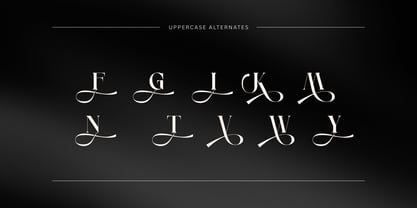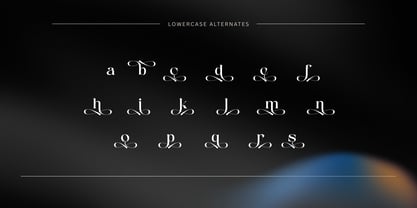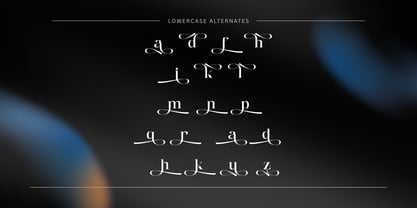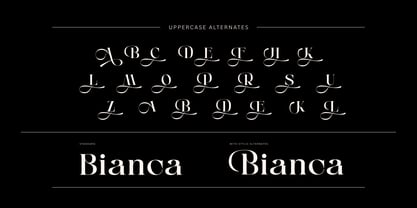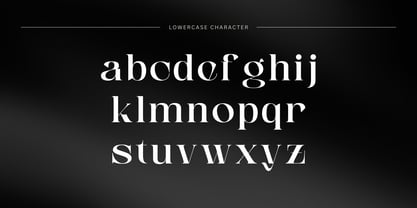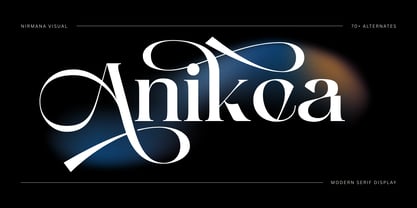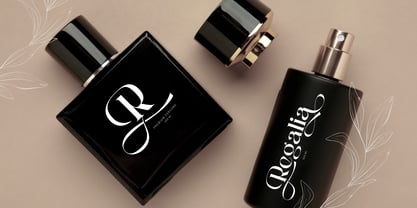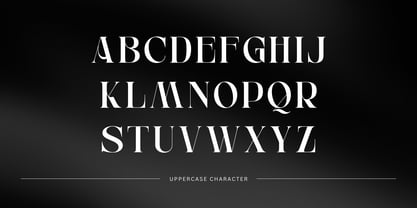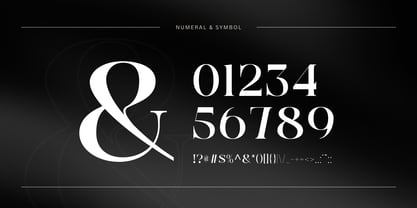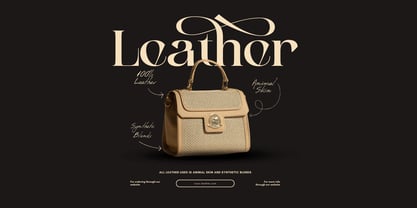
Anikea
The Anikea Font Family was designed by Sigit Dwipa and published by Nirmana Visual. Anikea contains 2 styles and family package options. More about this family
Anikea is a refined luxury logo font designed to bring timeless elegance to your branding. Available in Regular and Italic styles, it offers a versatile balance of sophistication and creativity. With over 100+ ligatures and alternates, Anikea allows endless customization, ensuring every design feels unique and premium. Perfect for high-end logos, fashion branding, packaging, and editorial projects, it makes your design stand out with effortless luxury.